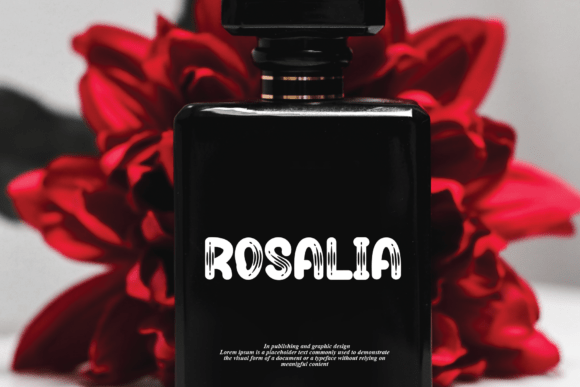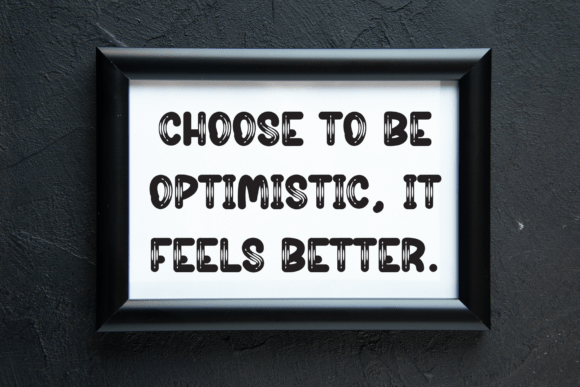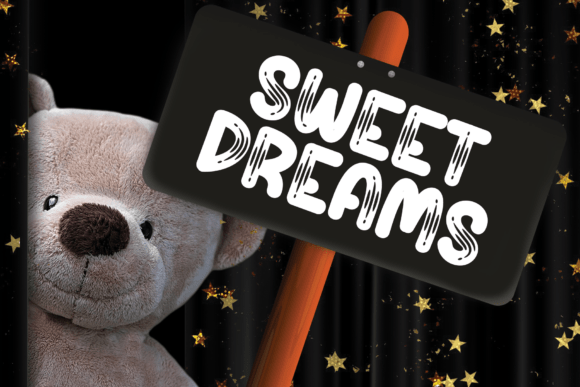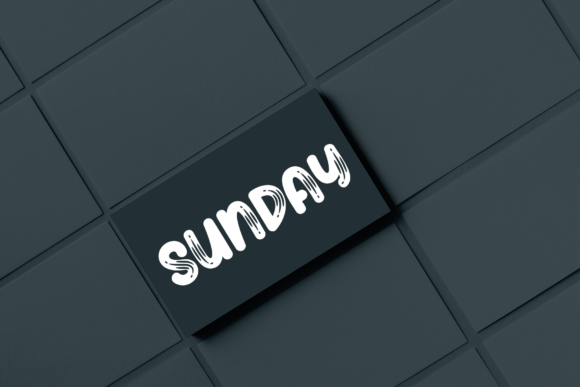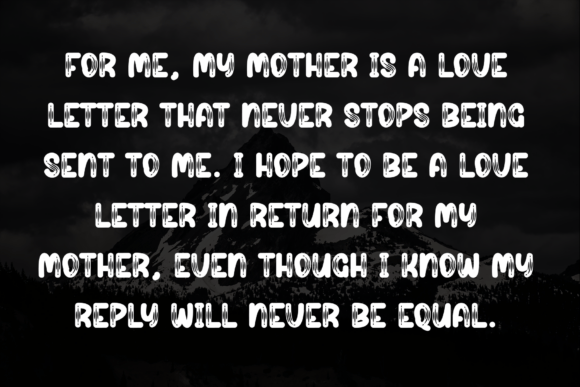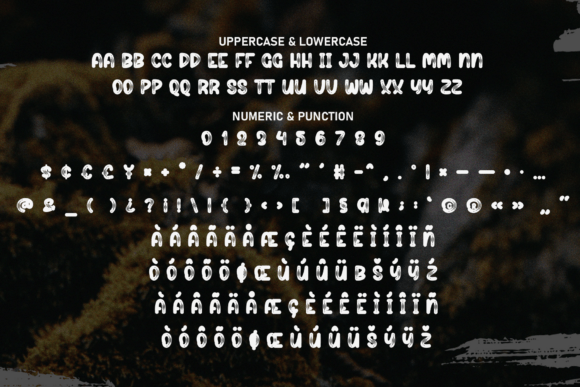
Introducing Brush Season Font: The Perfect Blend of Fun and Relaxation
Are you looking for a font that embodies the carefree spirit of summer? Look no further than Brush Season Font, a neat and casual display font that’s perfect for adding a touch of fun and relaxation to your creative projects. With its clean lines and easygoing vibe, Brush Season Font is ideal for summer posters, event flyers, and playful branding.
What Makes Brush Season Font So Special?
Brush Season Font is a unique and refreshing typeface that’s designed to bring a breezy, laid-back feel to any creative project or message. Its cheerful and upbeat design makes it perfect for a wide range of applications, from summer-themed posters and flyers to playful branding and packaging.
One of the standout features of Brush Season Font is its clean lines and simple design. Unlike other fonts that can be overly ornate or complicated, Brush Season Font is easy to read and understand, making it perfect for use in a variety of contexts.
The Benefits of Using Brush Season Font
So why should you choose Brush Season Font for your next creative project? Here are just a few benefits of using this fun and versatile font:
- Perfect for Summer-Themed Designs: Brush Season Font is specifically designed to evoke the carefree spirit of summer. Its cheerful and upbeat design makes it perfect for summer posters, flyers, and other creative projects.
- Easily Readable: Unlike other fonts that can be overly ornate or complicated, Brush Season Font is easy to read and understand. This makes it perfect for use in a variety of contexts, from posters and flyers to branding and packaging.
- Playful and Fun: Brush Season Font is the perfect choice for designers who want to add a touch of fun and playfulness to their creative projects. Its breezy and laid-back design makes it perfect for use in a wide range of applications.
- Versatile: Brush Season Font is a versatile font that can be used in a wide range of creative projects. From summer posters and flyers to playful branding and packaging, this font is perfect for any project that requires a fun and carefree vibe.
How to Use Brush Season Font in Your Designs
Using Brush Season Font in your designs is easy. Here are a few tips to get you started:
- Pair it with Other Fonts: Brush Season Font pairs well with other fonts, making it easy to create visually appealing and interesting designs. Try pairing it with a bold font for a striking contrast.
- Use it for Headings and Titles: Brush Season Font is perfect for use in headings and titles. Its clean lines and simple design make it easy to read and understand, even at large sizes.
- Add Some Color: Brush Season Font looks great in a variety of colors. Try adding some bright and bold colors to your design to really make it pop.
Who Can Benefit from Using Brush Season Font?
Brush Season Font is perfect for a wide range of designers and crafters, including:
- Graphic Designers: Brush Season Font is perfect for graphic designers who want to add a touch of fun and playfulness to their designs.
- Event Planners: Brush Season Font is perfect for event planners who want to create eye-catching and engaging event flyers and posters.
- Crafters: Brush Season Font is perfect for crafters who want to add a personal touch to their handmade projects.
- Small Business Owners: Brush Season Font is perfect for small business owners who want to create a fun and playful brand identity.
Brush Season Font is a unique and refreshing typeface that’s perfect for adding a touch of fun and relaxation to your creative projects. With its clean lines and easygoing vibe, it’s perfect for summer posters, event flyers, and playful branding. Whether you’re a graphic designer, event planner, crafter, or small business owner, Brush Season Font is the perfect choice for any project that requires a fun and carefree vibe.